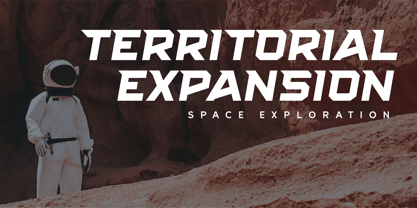
Space Captain
by Patria Ari
The Space Captain Font Family was designed by Patria Ari Wijonarko and published by Patria Ari. Space Captain contains 1 styles. More about this family
Space Captain is a modern all caps font with uniquely sharp and geometric shapes.
Alternative wing shapes in the left and right in alphabet included in stylistic alternates.
This font perfect for logotype such as technology, construction, automotive, heavyweight, etc.